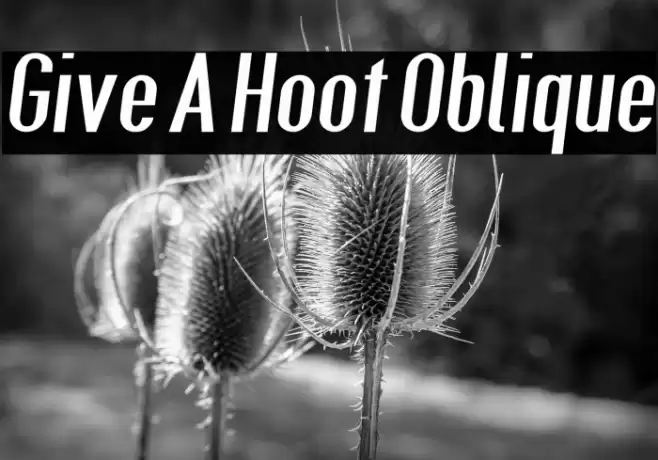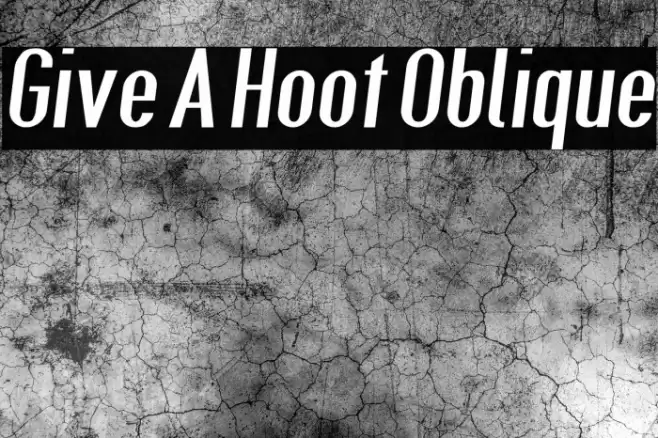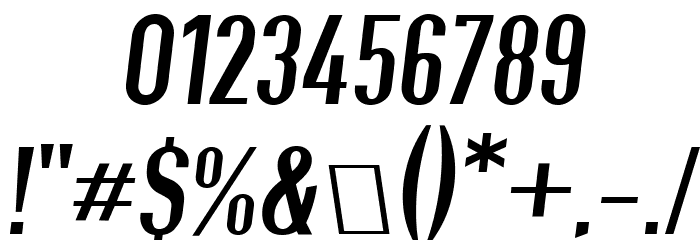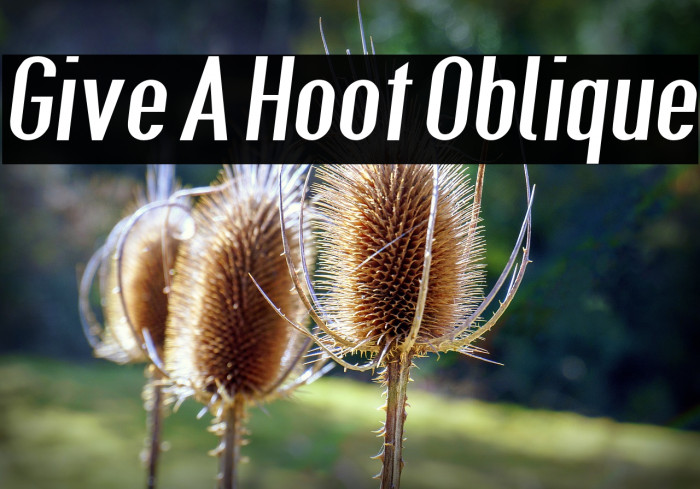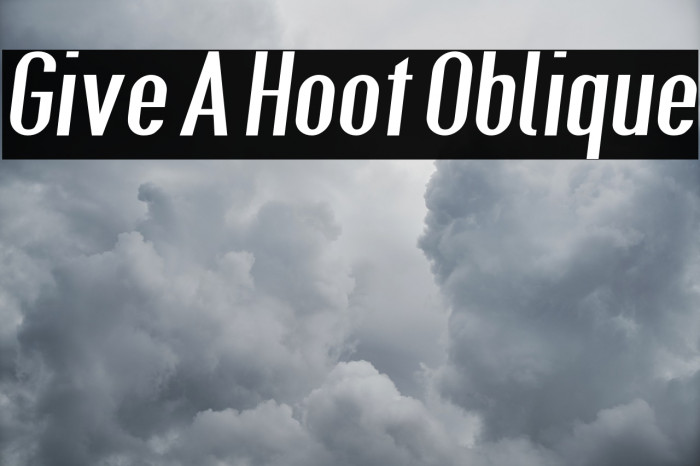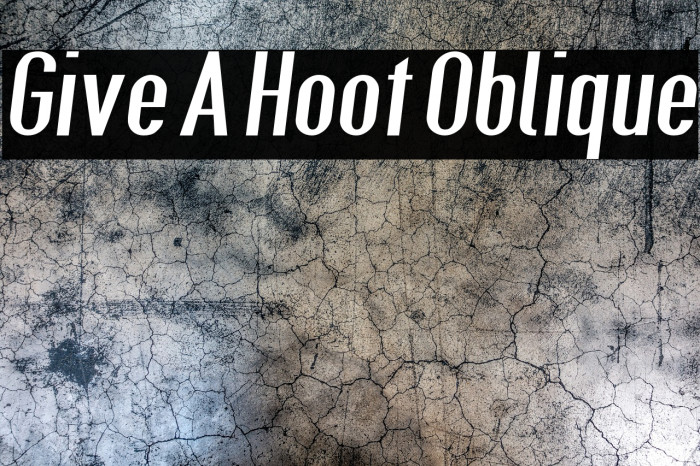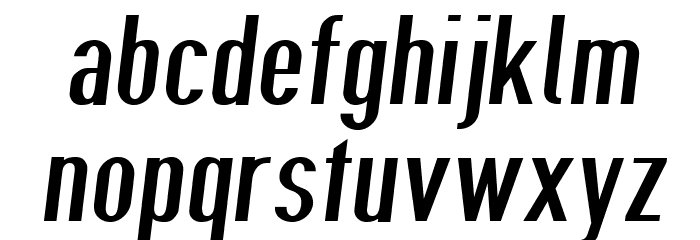
Give A Hoot Oblique Font
Give A Hoot Oblique Description
This font features a dynamic and modern oblique style, characterized by its slanted and elongated letterforms. The uppercase and lowercase letters maintain a consistent slant, giving the typeface a sense of motion and energy. The numerals are clear and legible, matching the overall style of the alphabet. Special characters are included, providing versatility for various design needs. The font's sleek and contemporary appearance makes it suitable for projects that require a bold and impactful visual statement.
A modern oblique font with slanted, elongated letterforms and a dynamic style from Uncategorized fonts.
- Proposed Projects: Ideal for branding, advertising, posters, and any design project that requires a modern and energetic typeface.